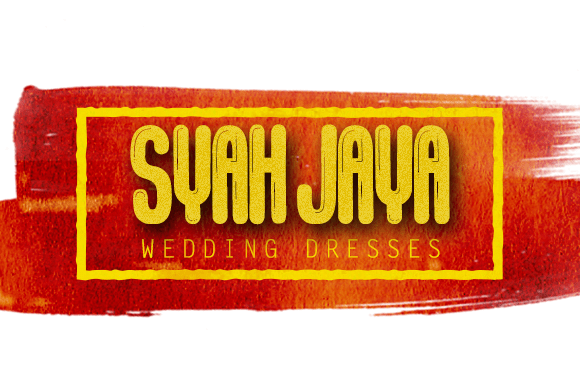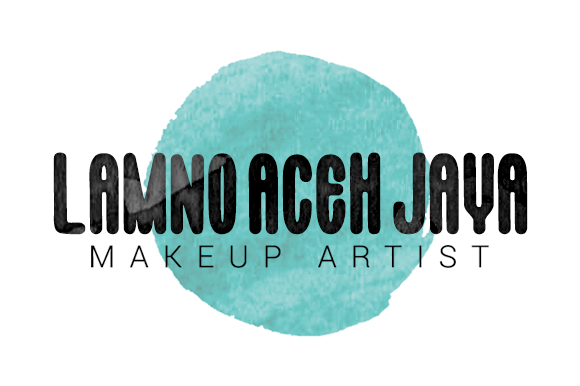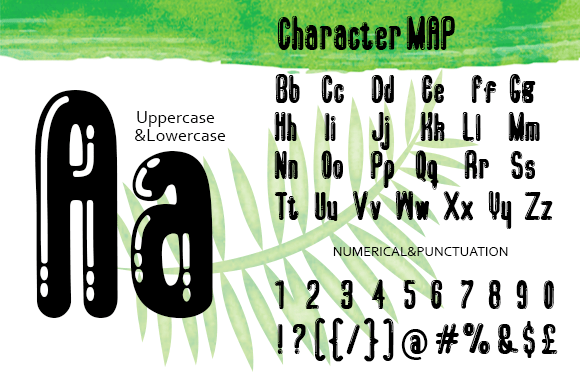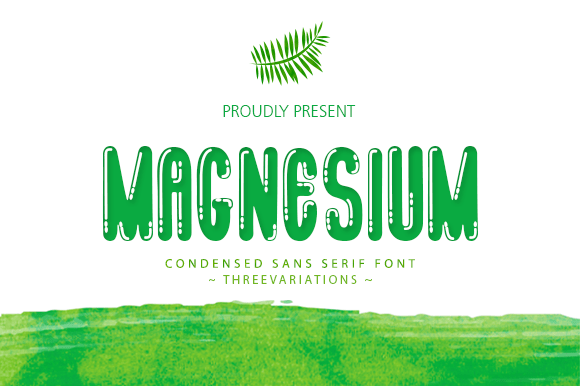
Introduction to Magnesium Font
Add a classic touch to your craft projects with this versatile Magnesium font in three variations.
This list includes both OTF and TTF files of the Magnesium font, perfect for adding a sporty look to any design Use this Magnesium font to create college-inspired artwork, team logos, or customized apparel designs.
Key Features of Magnesium Font
Magnesium Font offers exceptional quality and versatility, making it a valuable addition to your design toolkit. Whether you’re creating for personal projects or commercial use, Magnesium Font delivers professional results.